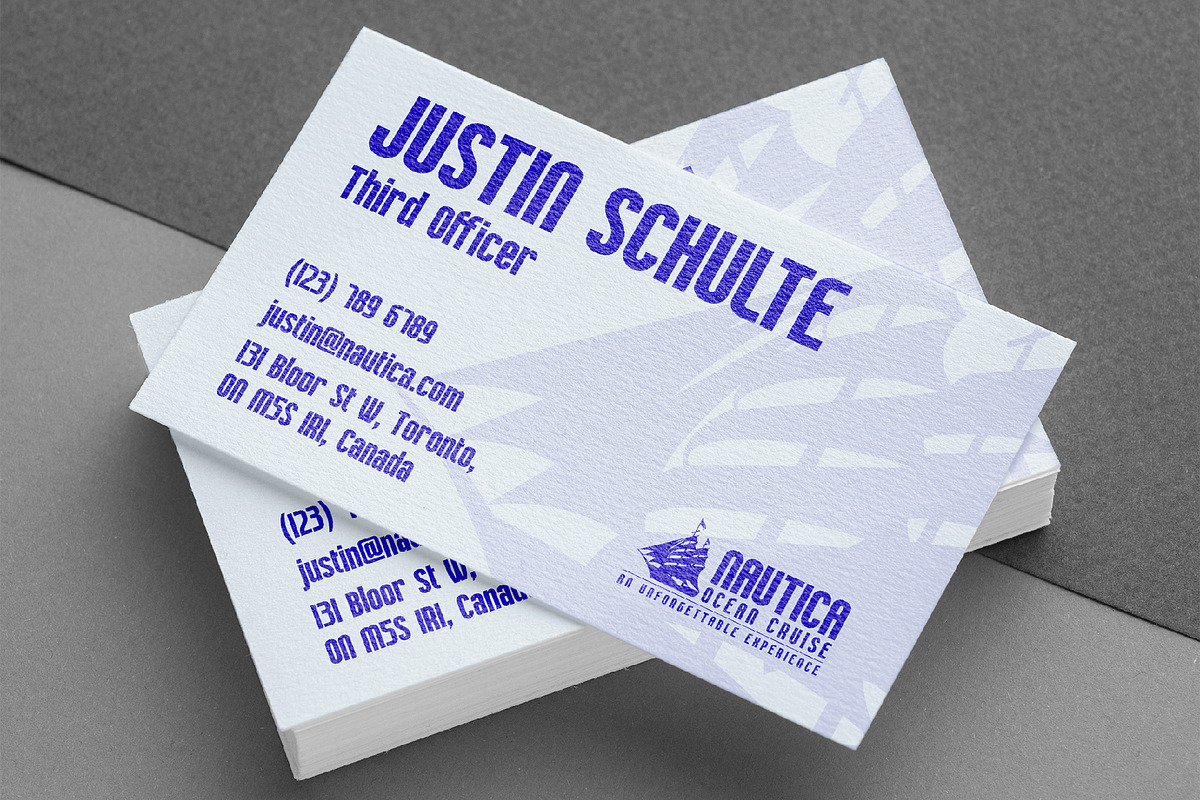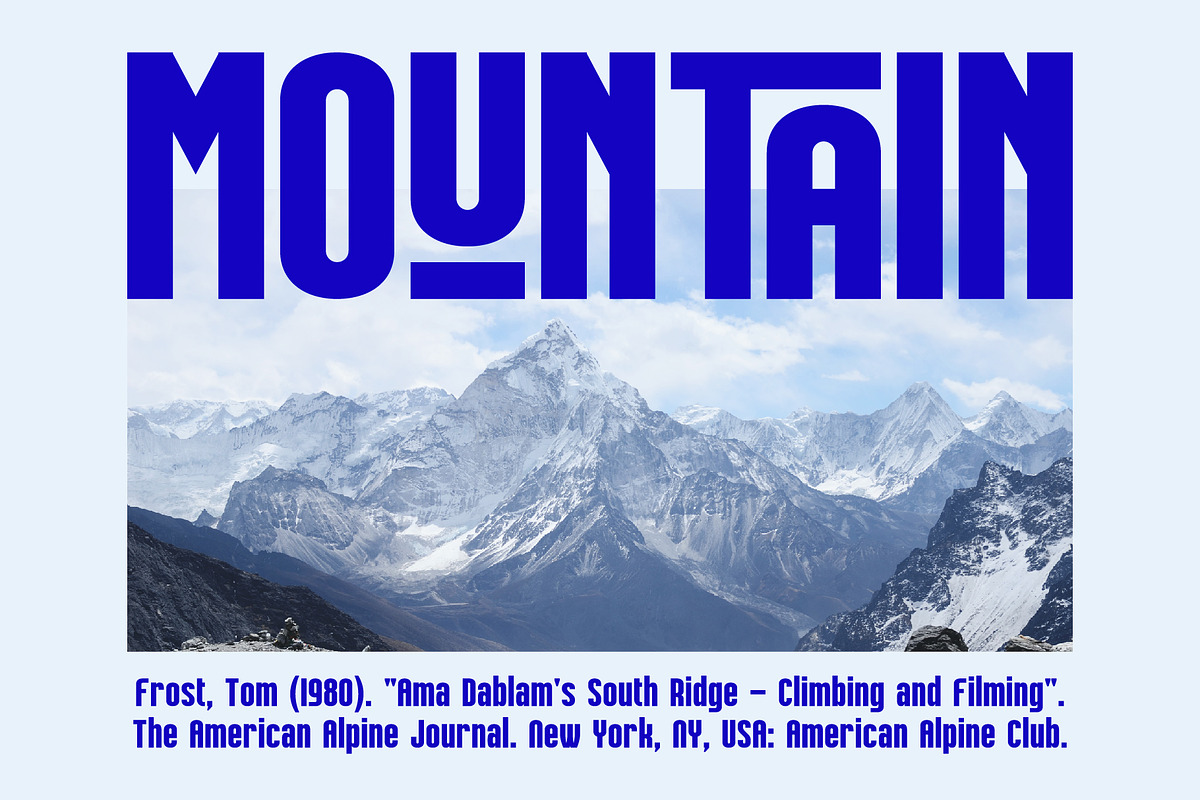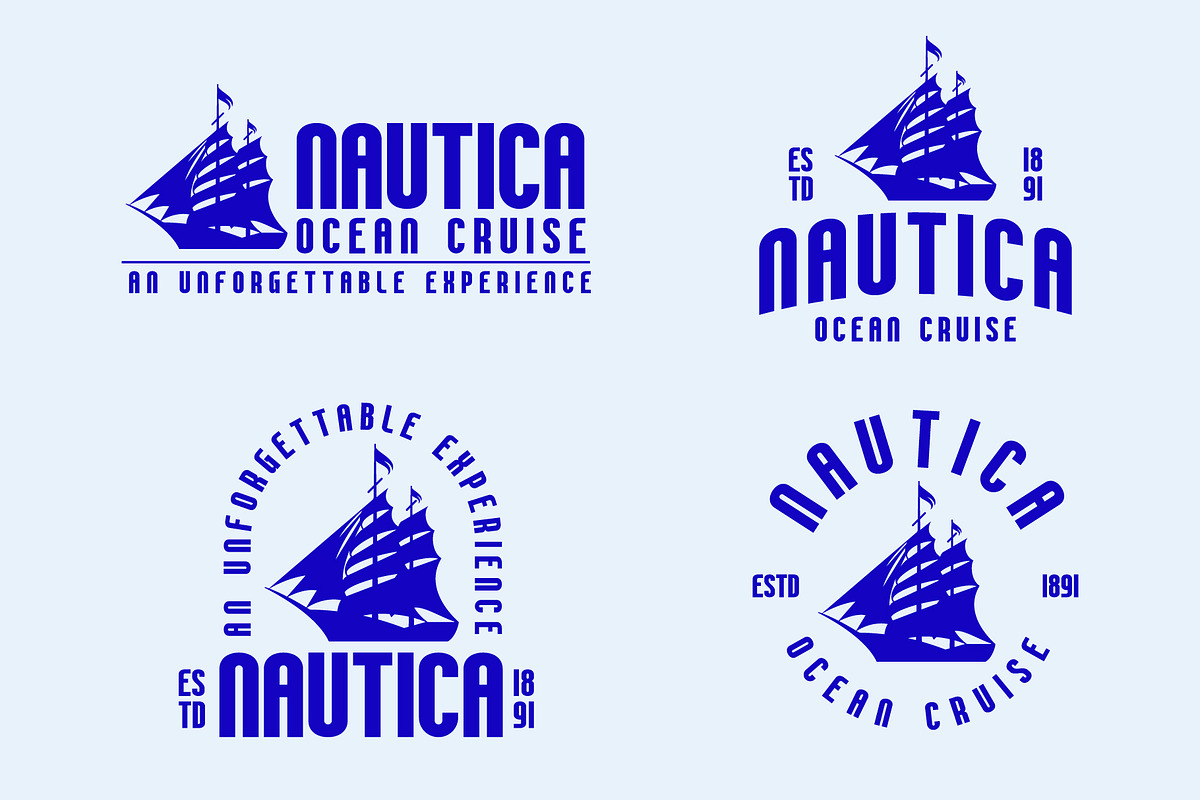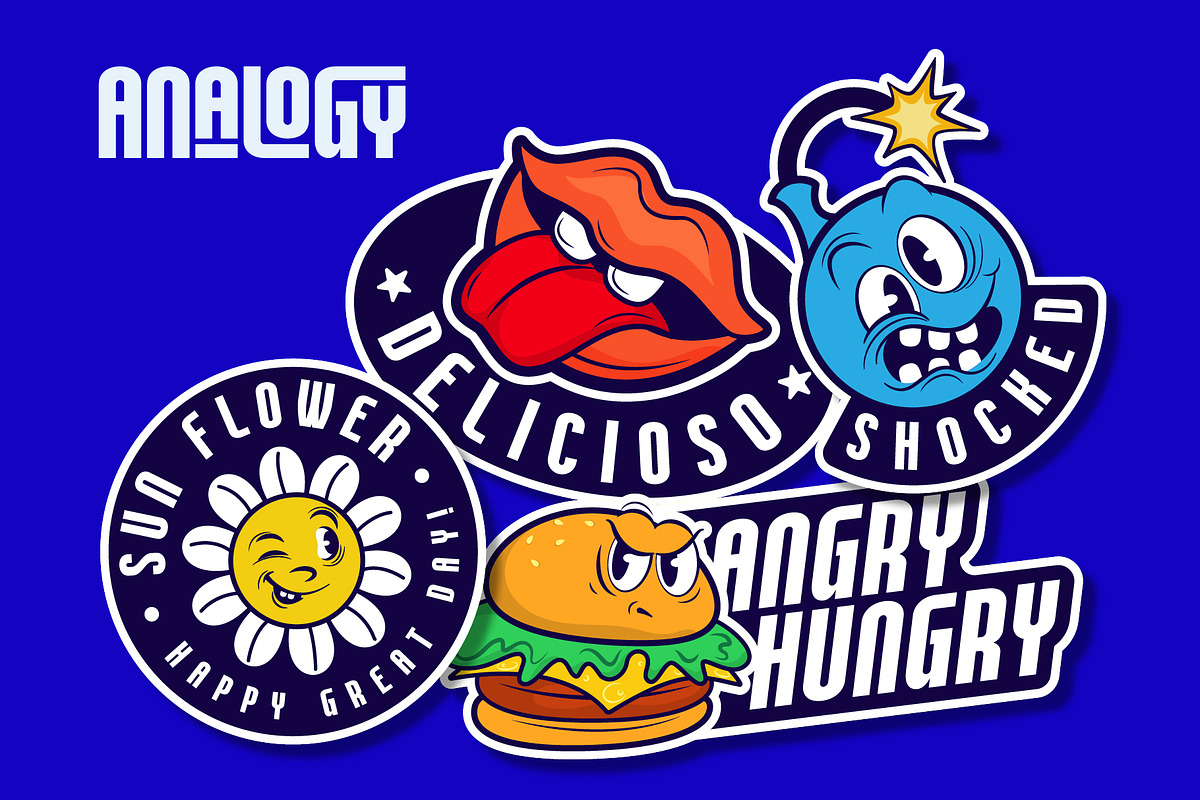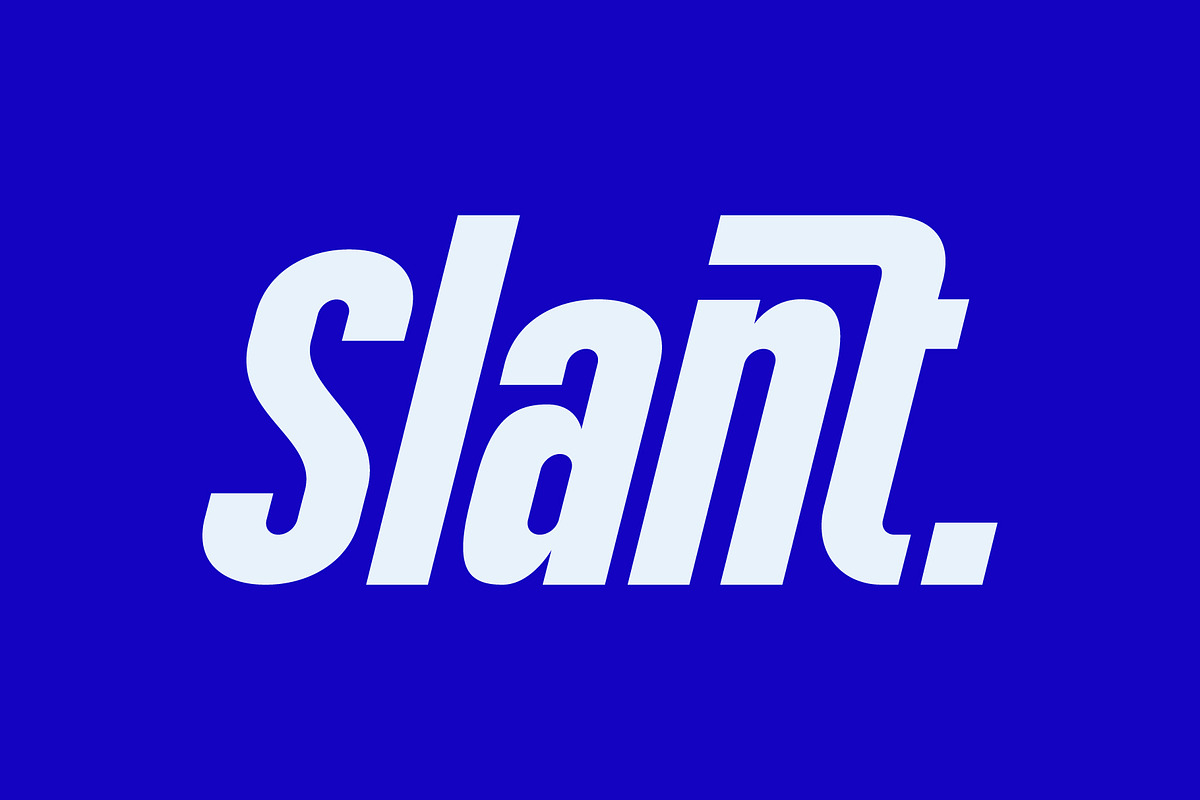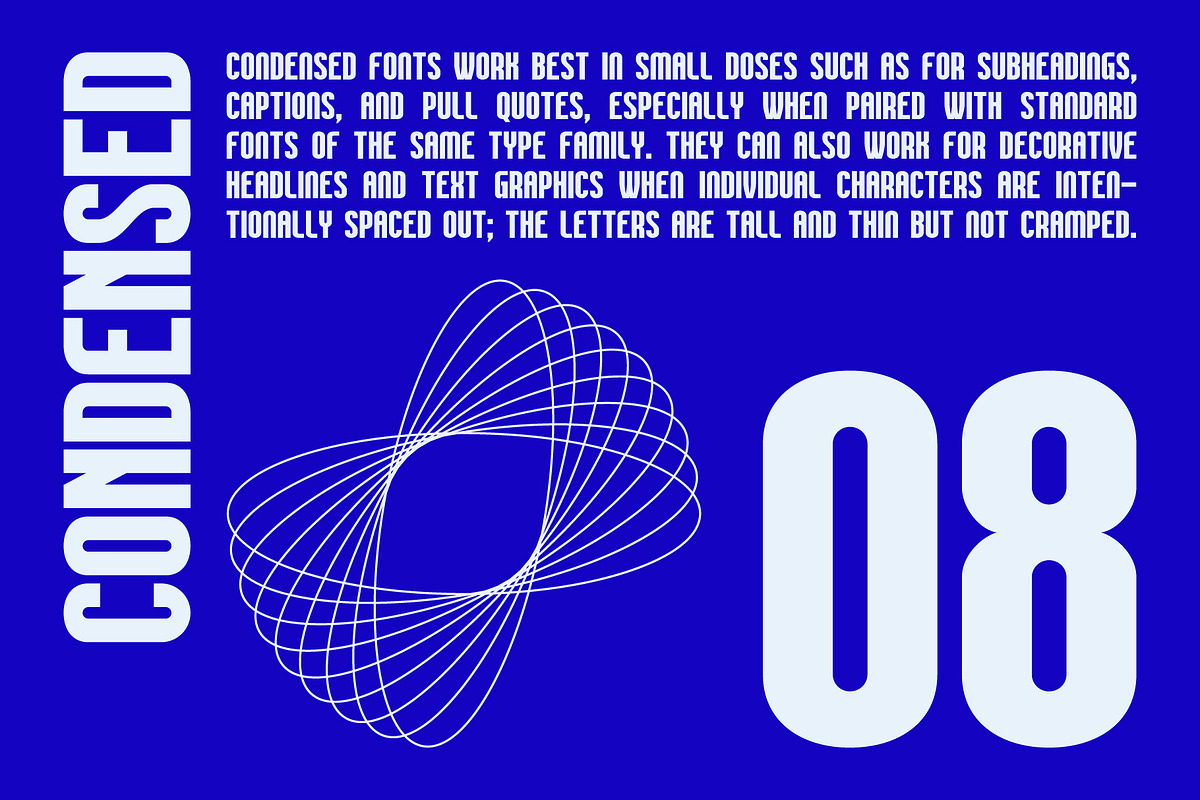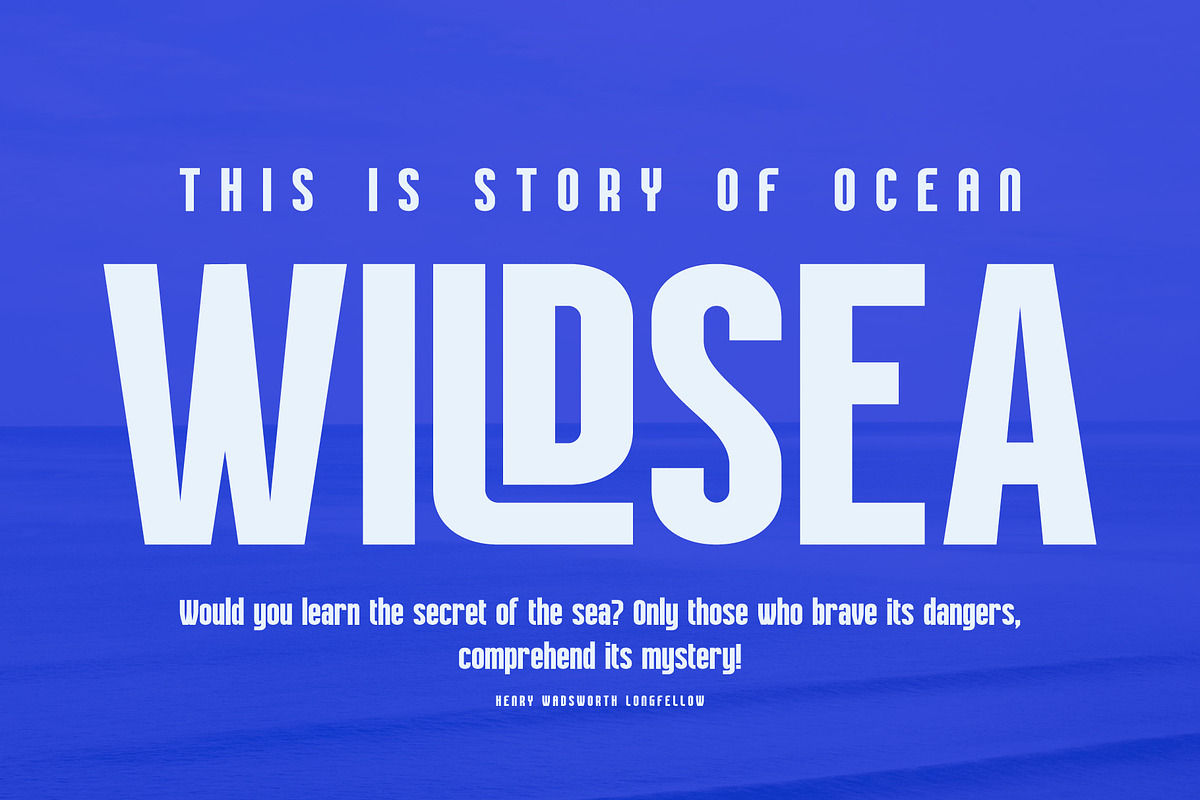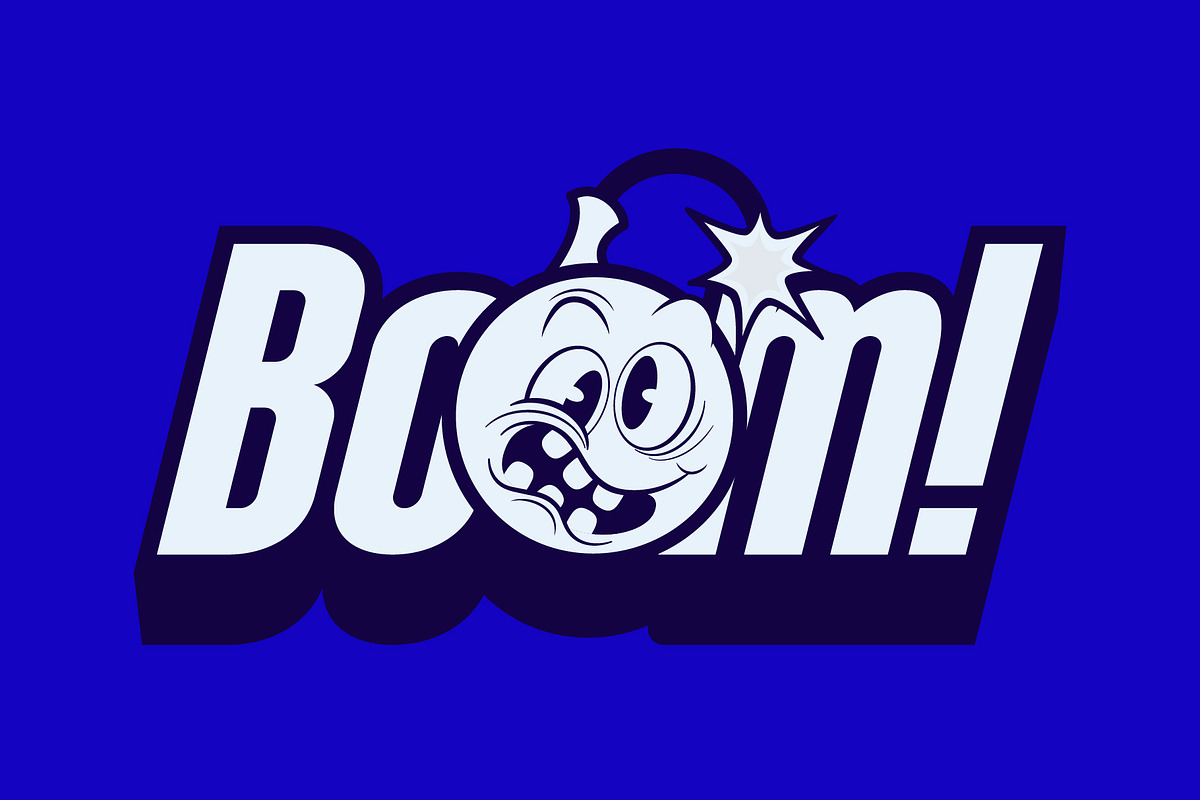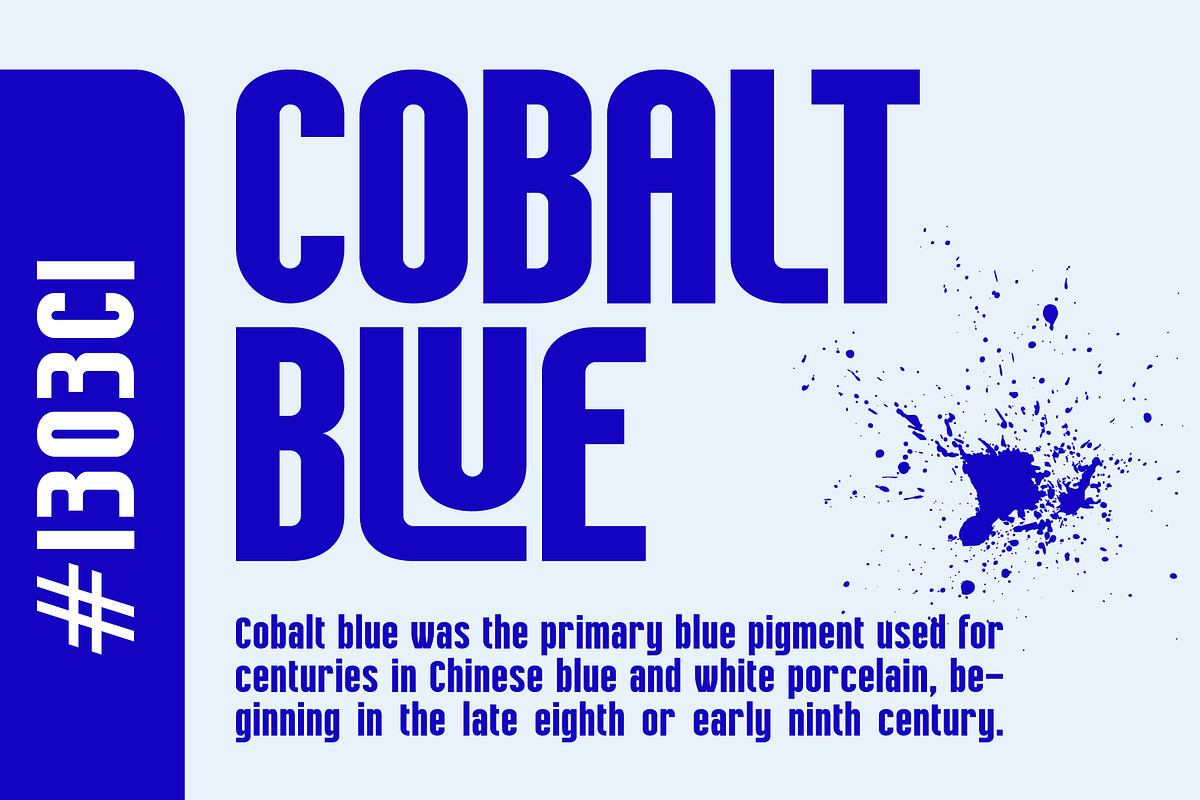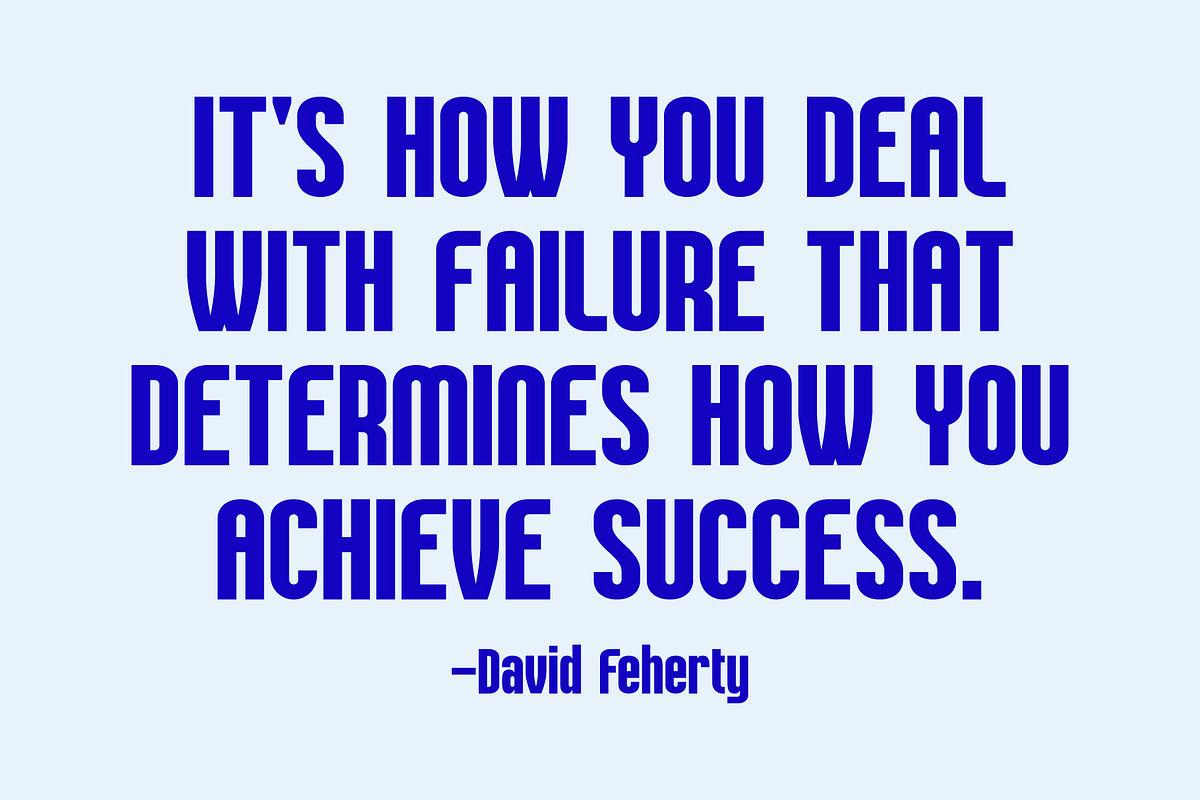
Analogy | Modern Sans Serif Font
Analogy is a bold typeface that is strong, geometric, and confident. Manifolds will give your design alternatives a modern look and make your creative work stand out with lots of unique ligatures. highly recommended and those who are planning a poster design, logo, headline, t-shirt, etc.
- Regular & Oblique